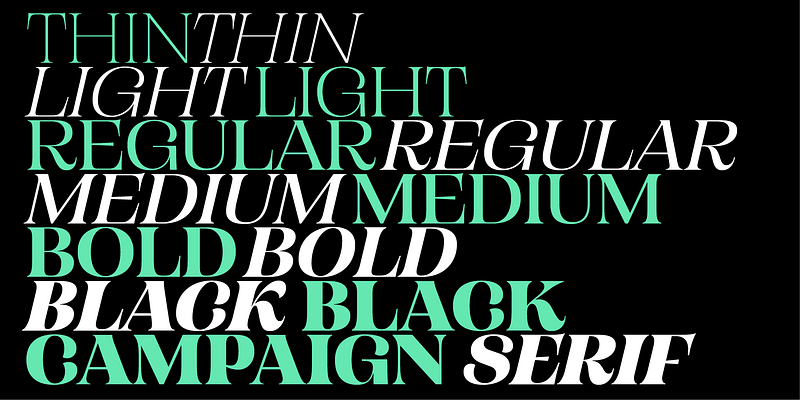
Campaign Serif Font Free Download is a robust and elegant serif typeface designed for clarity and impact. With its strong lines, traditional serifs, and modern design elements, this font is perfect for projects that require a balance of sophistication and readability. Ideal for branding, editorial design, advertising, and high-end print materials.
Campaign Serif Font Free Download offers a polished look with high legibility, making it a great choice for both large headings and smaller text applications. Its timeless design ensures it stands out in professional layouts, providing a sense of authority and credibility.
Whether you're designing for luxury brands, creating editorial content, or working on marketing campaigns, Campaign Serif adds a classic yet modern touch to your typography.